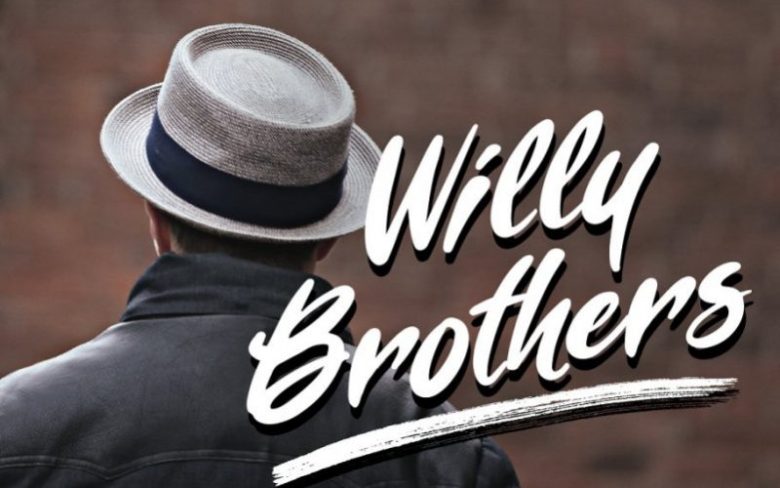
Willy Brothers Brush Font
Willy Brothers font is a spontaneous script font. It’s good use for any design product you want. like poster, brand product, logo type, title, etc.